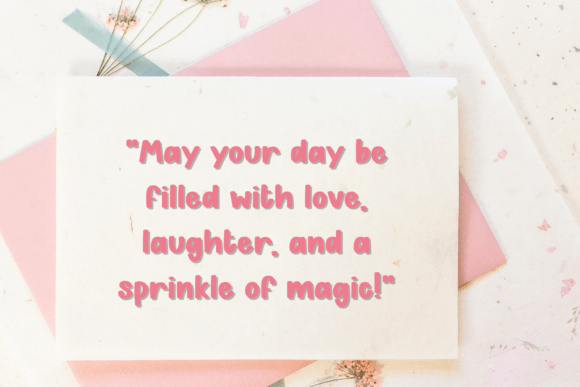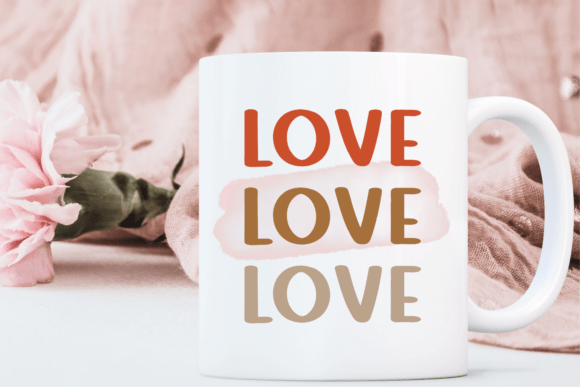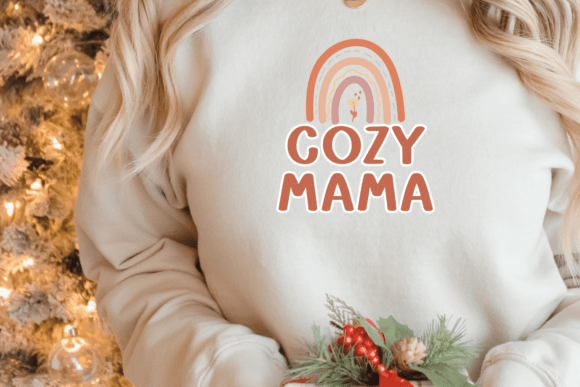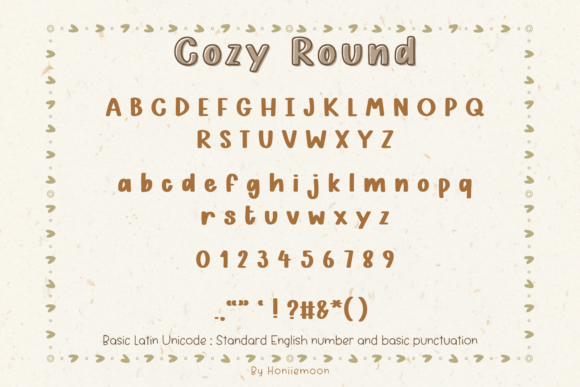
Introducing Cozy Round: The Ultimate Friendly Font for Your Designs
Are you looking for a font that can add a touch of warmth and comfort to your designs? Look no further than Cozy Round, a charming and cute handwritten font that’s perfect for a wide range of projects. With its rounded edges and comfortable style, Cozy Round is sure to become your go-to font for all your design needs.
The Perfect Font for Friendly and Playful Designs
Cozy Round is a handwritten font that’s designed to evoke a sense of friendliness and playfulness. Its rounded edges and soft curves make it perfect for designs that need a personal touch. Whether you’re working on a children’s book, educational materials, greeting cards, invitations, T-shirt designs, or branding, Cozy Round is the perfect choice.
Key Features of Cozy Round
- Full set of uppercase and lowercase letters: Cozy Round comes with a complete set of uppercase and lowercase letters, making it perfect for a wide range of design projects.
- Numbers and basic punctuation: The font also includes numbers and basic punctuation, making it easy to create professional-looking designs.
- Rounded edges and comfortable style: Cozy Round’s rounded edges and comfortable style make it perfect for designs that need a friendly and approachable feel.
- Handwritten with love: Cozy Round is a handwritten font that’s been crafted with love and care, giving it a unique and personal touch.
Why Choose Cozy Round?
So why choose Cozy Round over other fonts? Here are just a few reasons:
- Unique and personal touch: Cozy Round’s handwritten style gives it a unique and personal touch that’s hard to find with other fonts.
- Versatile: Cozy Round is perfect for a wide range of design projects, from children’s books to branding and advertising.
- Easily readable: Cozy Round’s clear and comfortable style makes it easy to read, even at small sizes.
- Timeless: Cozy Round’s classic style ensures that it will remain a popular choice for designers for years to come.
Using Cozy Round in Your Designs
Cozy Round is easy to use in a variety of design projects. Here are a few ideas to get you started:
- Children’s books and educational materials: Cozy Round is perfect for children’s books and educational materials, adding a touch of warmth and friendliness to your designs.
- Greeting cards and invitations: Cozy Round is a great choice for greeting cards and invitations, adding a personal touch to your designs.
- T-shirt designs: Cozy Round is perfect for T-shirt designs, adding a fun and playful touch to your designs.
- Branding and advertising: Cozy Round can also be used in branding and advertising, adding a touch of warmth and comfort to your brand.
Tips for Getting the Most Out of Cozy Round
Here are a few tips for getting the most out of Cozy Round:
- Experiment with different sizes: Cozy Round looks great at a variety of sizes, so don’t be afraid to experiment to find the perfect size for your design.
- Pair with other fonts: Cozy Round pairs well with other fonts, so try pairing it with a bold font for a fun and playful look.
- Use it consistently: To get the most out of Cozy Round, use it consistently throughout your design.
Cozy Round is a charming and cute handwritten font that’s perfect for designers and crafters looking to add a touch of warmth and comfort to their designs. With its rounded edges and comfortable style, Cozy Round is sure to become your go-to font for all your design needs. So why wait? Download Cozy Round today and start creating your own friendly and playful designs!